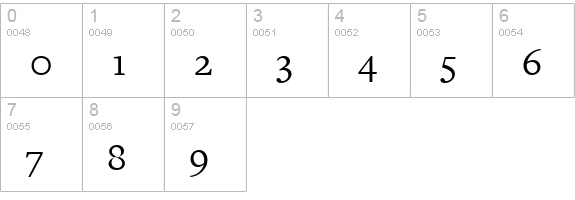
FreightText Book is a comfortable, highly readable variant in the FreightText typeface family \xE2\x80\x94 well suited to long-form body text, articles, and editorial content.